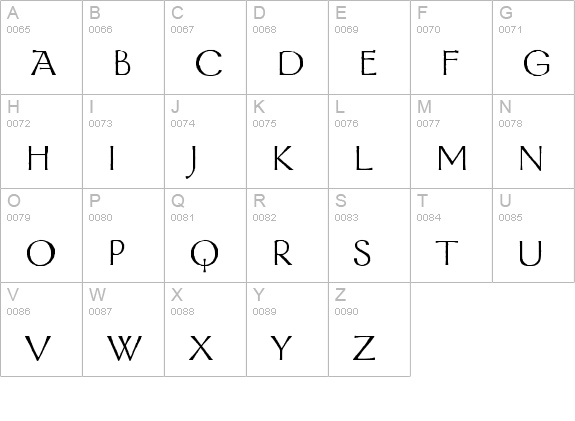
Galahad Std Font Details
Galahad Std font is a modern and stylish typeface that exudes elegance and sophistication. With its clean lines and balanced proportions, this font is perfect for a wide range of projects, from branding and advertising to editorial design and web graphics. The timeless appeal of Galahad Std font lies in its versatility. Whether you're looking to create a professional logo or a captivating headline, this font will effortlessly elevate your designs to new heights. Its sleek and refined aesthetic makes it a go-to choice for designers who want to convey a sense of luxury and refinement. What sets Galahad Std font apart is not only its stunning visual appeal but also its accessibility. It is freely available to download at FontsMarket.com, making it an excellent choice for designers on a budget or those who simply appreciate the value of high-quality, free resources. With Galahad Std font, you can create stunning designs without breaking the bank. Featuring a wide range of weights and styles, Galahad Std font offers plenty of options to suit your specific design needs. Whether you prefer a bold and impactful look or a more delicate and subtle aesthetic, this font has you covered. In addition to its visual appeal, Galahad Std font also boasts exceptional legibility, ensuring that your message is delivered with clarity and precision. Its clean and well-defined letterforms make it easy to read even at smaller sizes, making it a versatile choice for both print and digital projects. So why wait? Download Galahad Std font today from FontsMarket.com and unlock a world of creative possibilities. Whether you're a seasoned designer or just starting out, this font will undoubtedly become an essential tool in your typographic arsenal. Enjoy the freedom of creating stunning designs with Galahad Std font, the perfect blend of style and accessibility.